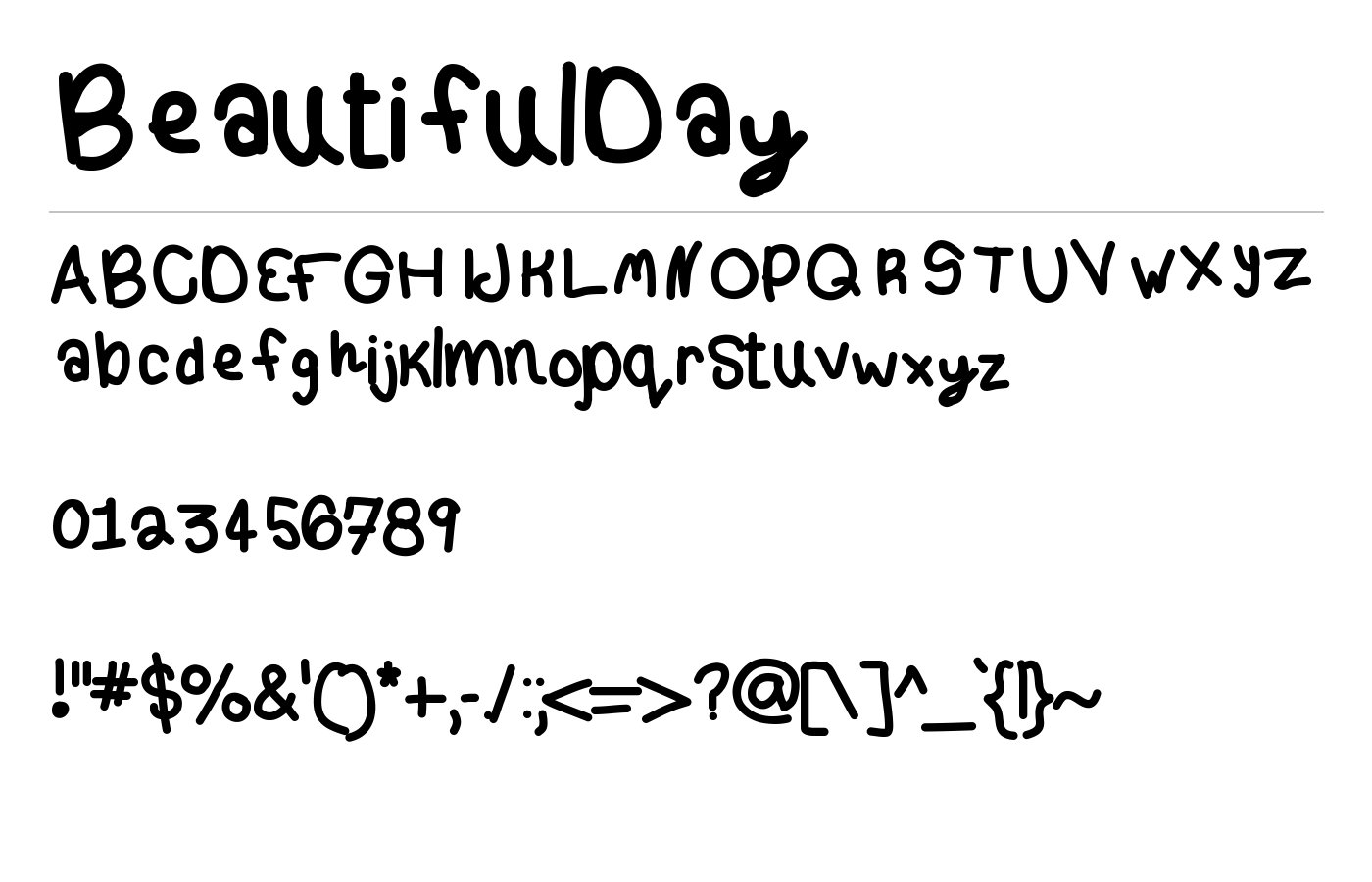
BeautifulDay is a playful, casual handwritten font with a friendly and informal vibe. Its uneven strokes and quirky letter shapes give it a warm, approachable feel, making it perfect for creative projects, children’s materials, or cheerful branding. This font works well in headlines and fun designs where personality and a relaxed style are desired.
BeautifulDay Font
About BeautifulDay Font